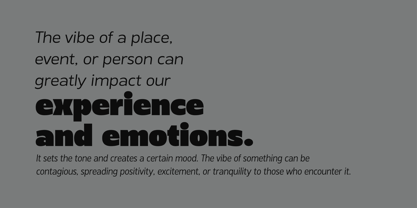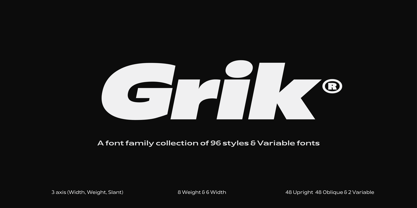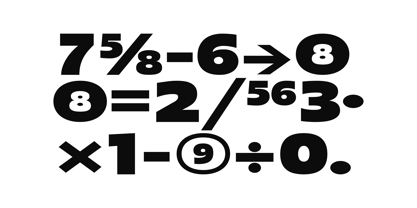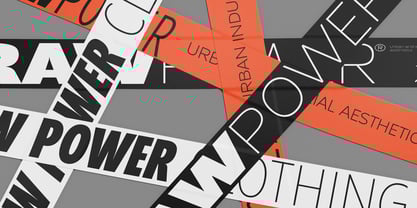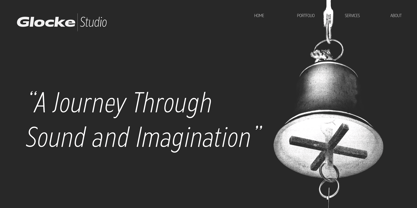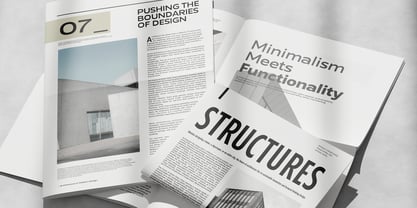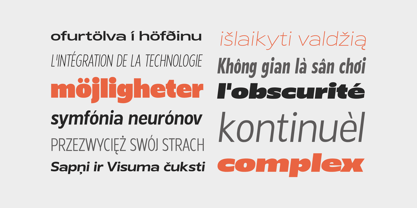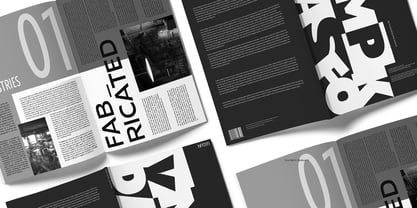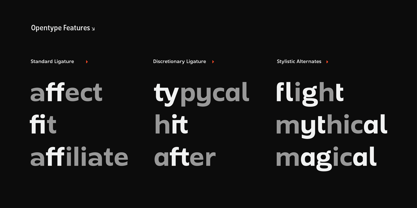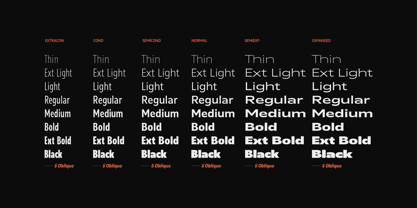
Grik
by thirtype
The Grik Font Family was designed by Cucu Supriyadi and published by thirtype. Grik contains 98 styles and family package options. More about this family
Grik was designed with a vision to merge contemporary typographic trends with practical functionality. Its development was inspired by a desire to create a font family that could adapt to any creative environment, from minimalist layouts to bold display text. Drawing from geometric and industrial influences. Combines sharp angles, clean lines, and subtle curves to achieve a harmonious and modern aesthetic. Grik is constructed with a geometric yet slightly humanist design, reflects the font's structured and slightly industrial personality while maintaining a universal appeal. Its inspiration draws from mid-century modernist typography, but with updates that cater to the demands of today’s diverse design needs.
With a collection of 96 font styles, it offers an extensive range of weights, from thin to black, and widths, from extra condensed to expanded. Additionally, the inclusion of matching oblique and variable font axes making it suitable for both corporate and creative applications. The typeface supports multiple languages, allowing it to cater to global audiences. Additionally, it is equipped with Opentype features, including contextual alternates, ligatures, and stylistic alternates, enhancing its usability and ensuring an engaging reading experience.
Comes with 2 axis variable system Grik enables designers to adjust weight, width, and matching italic , ensures maximum flexibility, allowing designers to fine-tune their typography with precision. From tight, compact text for headlines to wider, more relaxed letterforms for branding, Grik provides exceptional versatility without compromising on clarity or style. Grik is tailored for graphic designers, brand strategists, UI/UX designers, and editorial professionals who seek a font that delivers both versatility and a contemporary aesthetic.
Its ability to transition effortlessly from condensed to expanded styles makes it particularly valuable in industries such as technology, corporate branding, fashion, publishing, and advertising.
By integrating cutting-edge typography with innovative design, Grik stands as a powerful creative tool, allowing designers to push the boundaries of visual storytelling. Whether used for bold, eye-catching headlines or sophisticated, refined layouts, Grik ensures a professional and polished result in every project.
Designers: Cucu Supriyadi
Foundry: thirtype